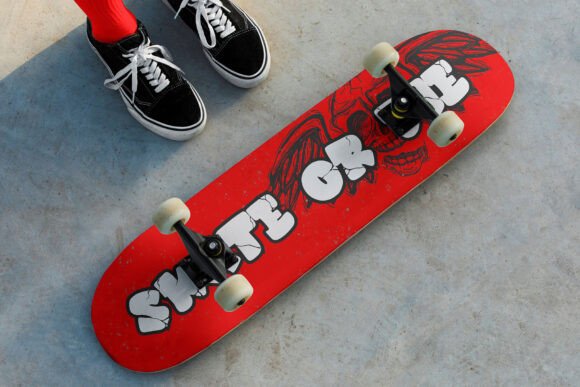
Vandal Soul Font: Unleashing the Audacious Spirit of Street Culture
In the realm of typography, few fonts capture the essence of street culture as authentically as Vandal Soul. This 3D layered graffiti font is a vibrant expression of individuality and raw energy, making it an indispensable asset for designers seeking to infuse their work with the unmistakable charm of urban graffiti. Characterized by its unique cracked detailing, Vandal Soul embodies the unruly and rugged allure of the streets, injecting a rebellious vibe into every design it touches.
The Quintessential Choice for Urban-Themed Concepts
Vandal Soul stands out as the quintessential choice for designers aiming to craft urban-themed concepts that resonate with the audacity and dynamism of street culture. Its layered styles impart a dimensional depth to text, culminating in a striking street-style effect that commands attention. Whether you’re working on posters, hip-hop ventures, streetwear branding, album covers, murals, or any project that calls for a bold and unapologetic aesthetic, Vandal Soul is the perfect companion.
Authentically Textured Aesthetic and Energized Dynamics
What sets Vandal Soul apart is its authentically textured aesthetic, which brings a tangible sense of realism and grit to any design. The font’s energized dynamics are reminiscent of the vibrant and ever-evolving nature of street art itself. With Vandal Soul, designers can tap into the pulsating energy of urban creativity, crafting visuals that not only stand out but also tell a story of their own.
Unleashing Creativity with Vandal Soul
The versatility of Vandal Soul is one of its most compelling attributes. This font is not just a typographical choice; it’s a creative tool that unlocks a myriad of possibilities. For instance, in poster design, Vandal Soul can be used to create bold, eye-catching headlines that immediately draw the viewer’s attention. In hip-hop ventures, it can add a layer of authenticity and swag, perfectly capturing the genre’s essence. For streetwear branding, the font’s rugged and urban feel can enhance brand identity, making it more relatable and appealing to the target audience.
Moreover, Vandal Soul’s application extends into the realm of album covers, where it can contribute to the visual narrative of music projects, especially those rooted in urban and street culture. For murals and large-scale artworks, the font’s 3D layered effect can add a physical dimension, making the artwork more engaging and interactive.
The Essence of Urban Artistry
Vandal Soul does more than just offer a stylistic choice; it encapsulates the very essence of urban artistry. Urban art, with its roots in graffiti and street culture, is a powerful form of self-expression and social commentary. It thrives on the raw energy of the city streets, constantly evolving and pushing boundaries. Vandal Soul, with its unique aesthetic and dynamic feel, channels this spirit, allowing designers to create work that is not only visually striking but also deeply connected to the cultural and artistic movements of our times.
Technical and Creative Applications
From a technical standpoint, Vandal Soul is designed to be user-friendly, ensuring that designers can easily integrate it into their projects. Its compatibility with various design software makes it a versatile tool that can be used across different platforms and mediums. Creatively, the font offers endless possibilities. Designers can experiment with different colors, textures, and layering effects to create unique visuals that reflect their artistic vision.
Furthermore, Vandal Soul’s distressed and cracked texture can be leveraged to add a sense of authenticity and grit to designs. This texture, reminiscent of real graffiti found on urban walls, adds a layer of depth and realism that digital fonts often lack. It’s this attention to detail and commitment to authenticity that makes Vandal Soul a standout choice for designers looking to create work that resonates with urban culture.
In conclusion, Vandal Soul is more than just a font; it’s a gateway to the vibrant and dynamic world of street culture. Its unique blend of 3D layered effects, cracked detailing, and authentically textured aesthetic makes it the perfect tool for designers seeking to infuse their work with the raw energy and individuality of urban graffiti. Whether you’re working on a project that requires a bold statement or seeking to push the boundaries of urban-themed design, Vandal Soul is an indispensable asset that will help you unleash your creativity and connect with your audience on a deeper level.
With Vandal Soul, the possibilities are endless. It’s time to immerse yourself in the audacious spirit of street culture and let this extraordinary font guide you through a creative journey that is as urban as it is artistic. Embrace the rebellious vibe, the dimensional depth, and the striking street-style effect that Vandal Soul offers. Let it be your companion in crafting designs that are not just visually stunning but also deeply rooted in the essence of urban artistry.